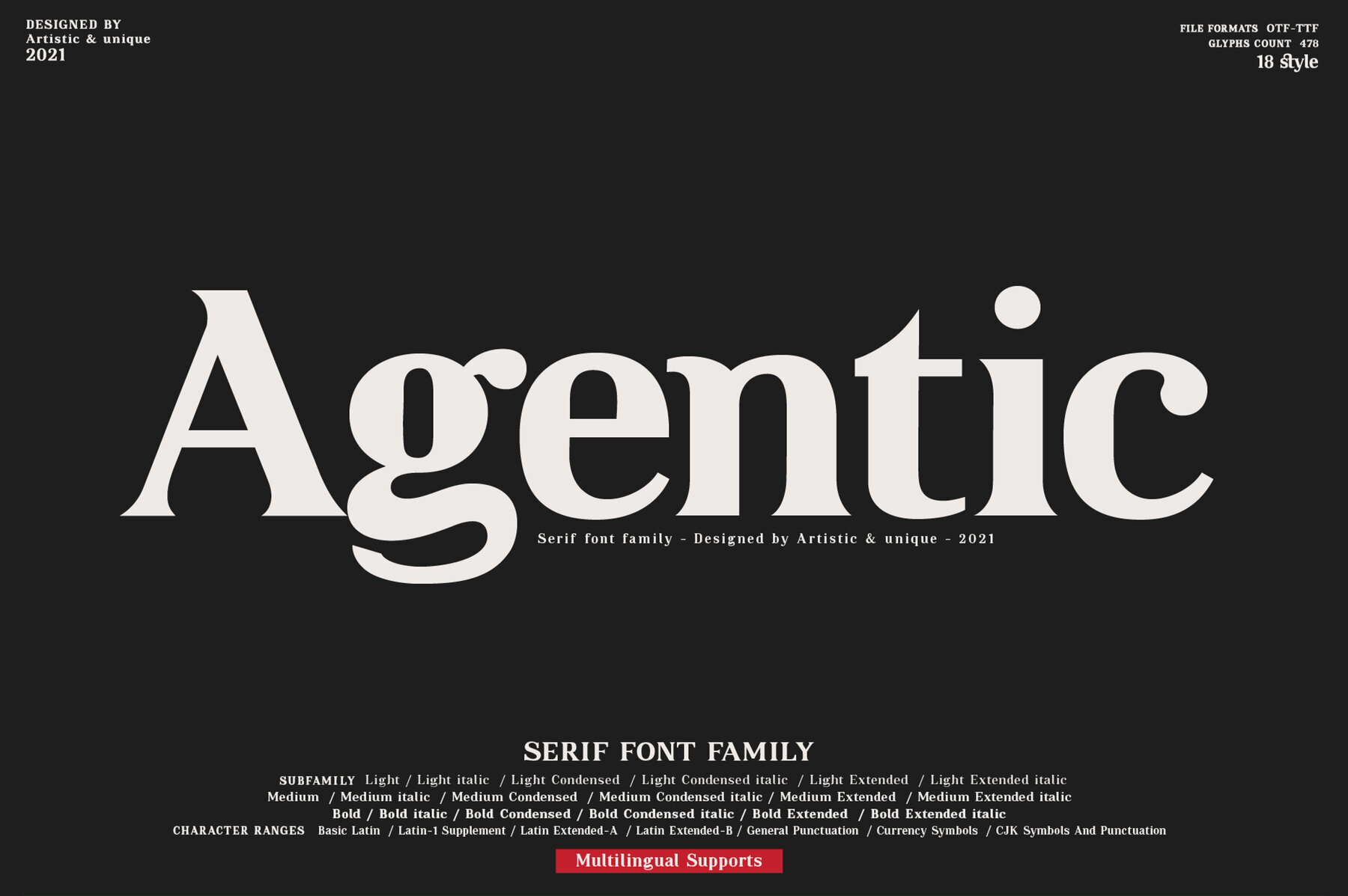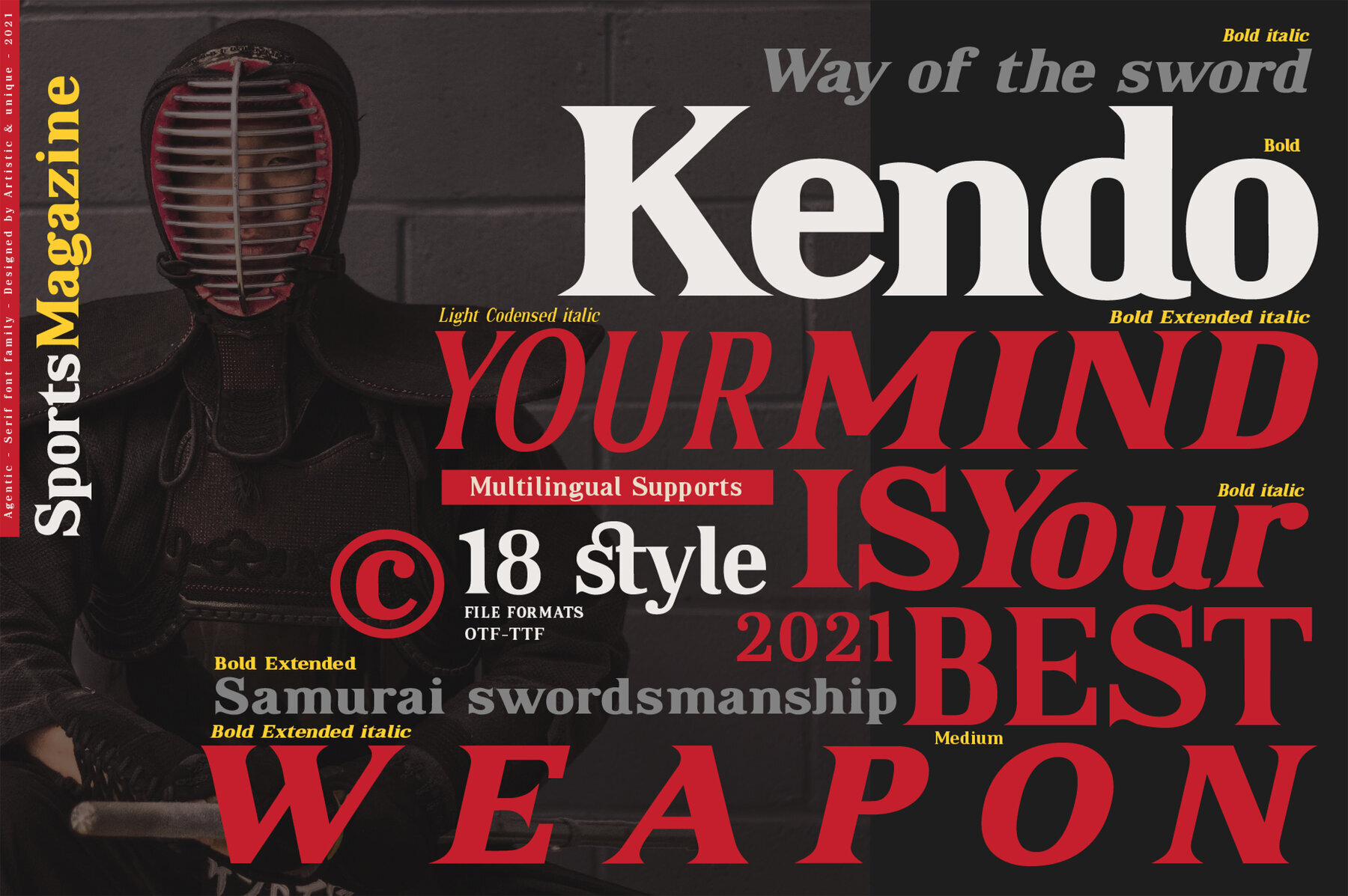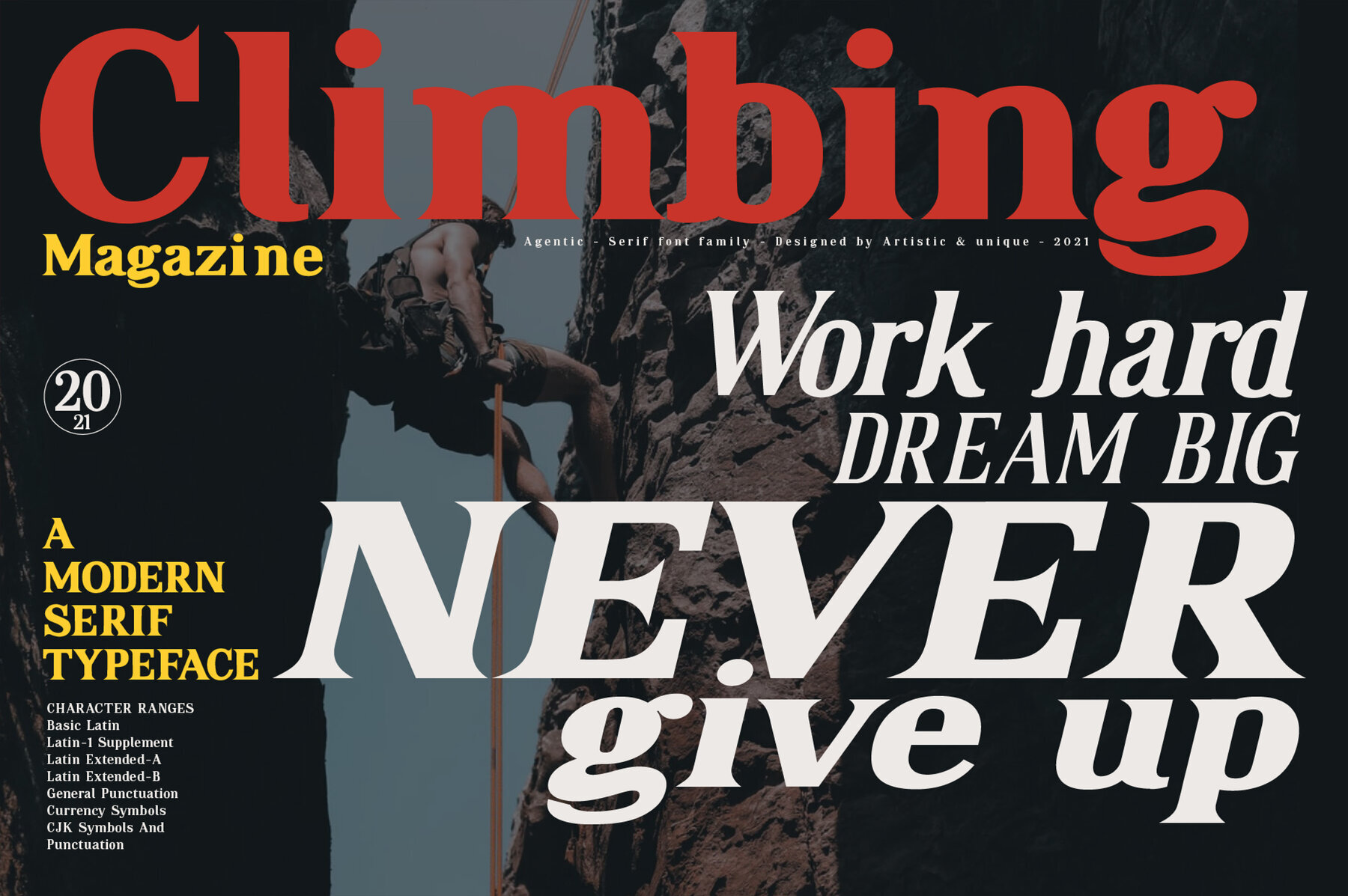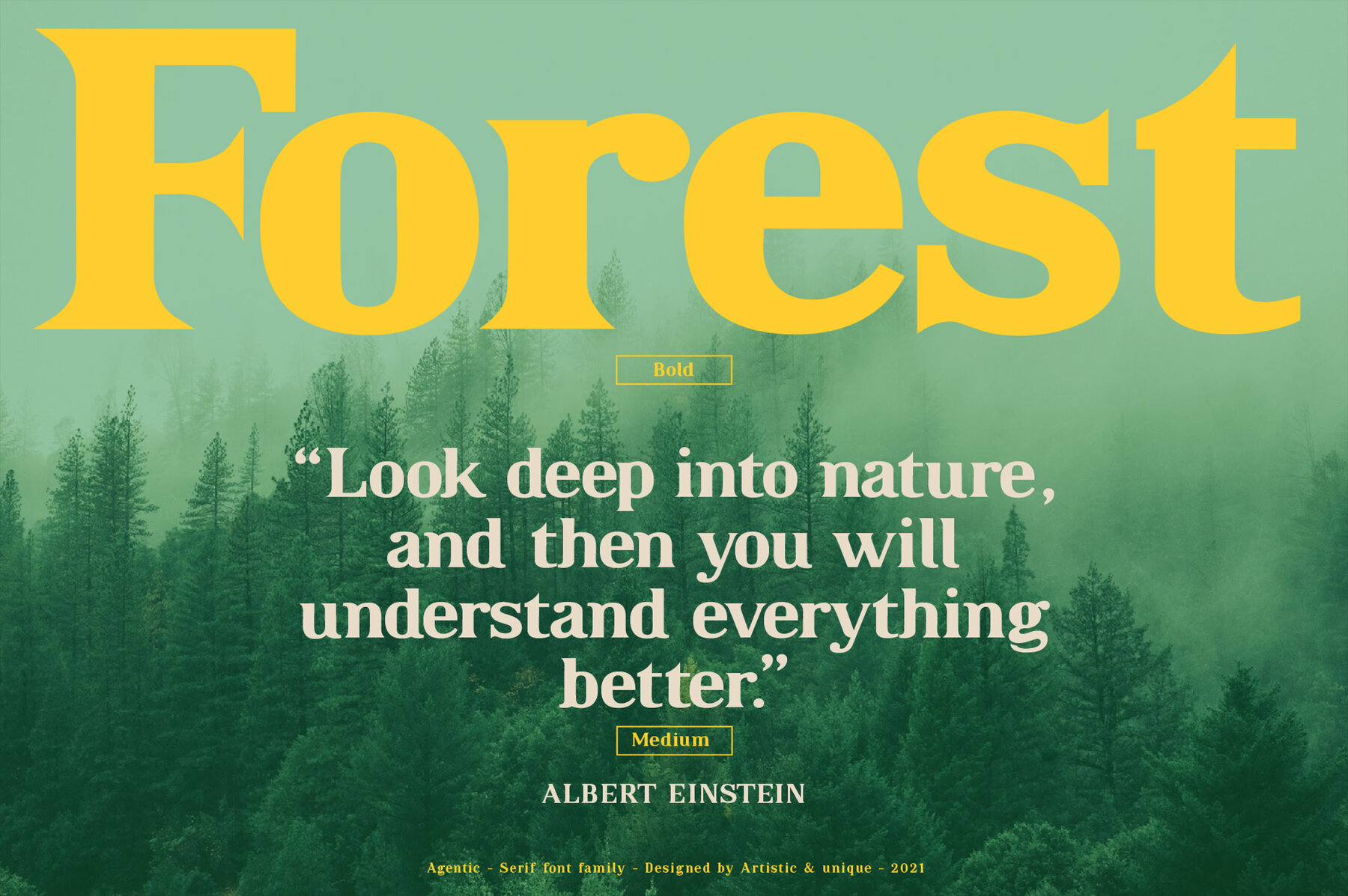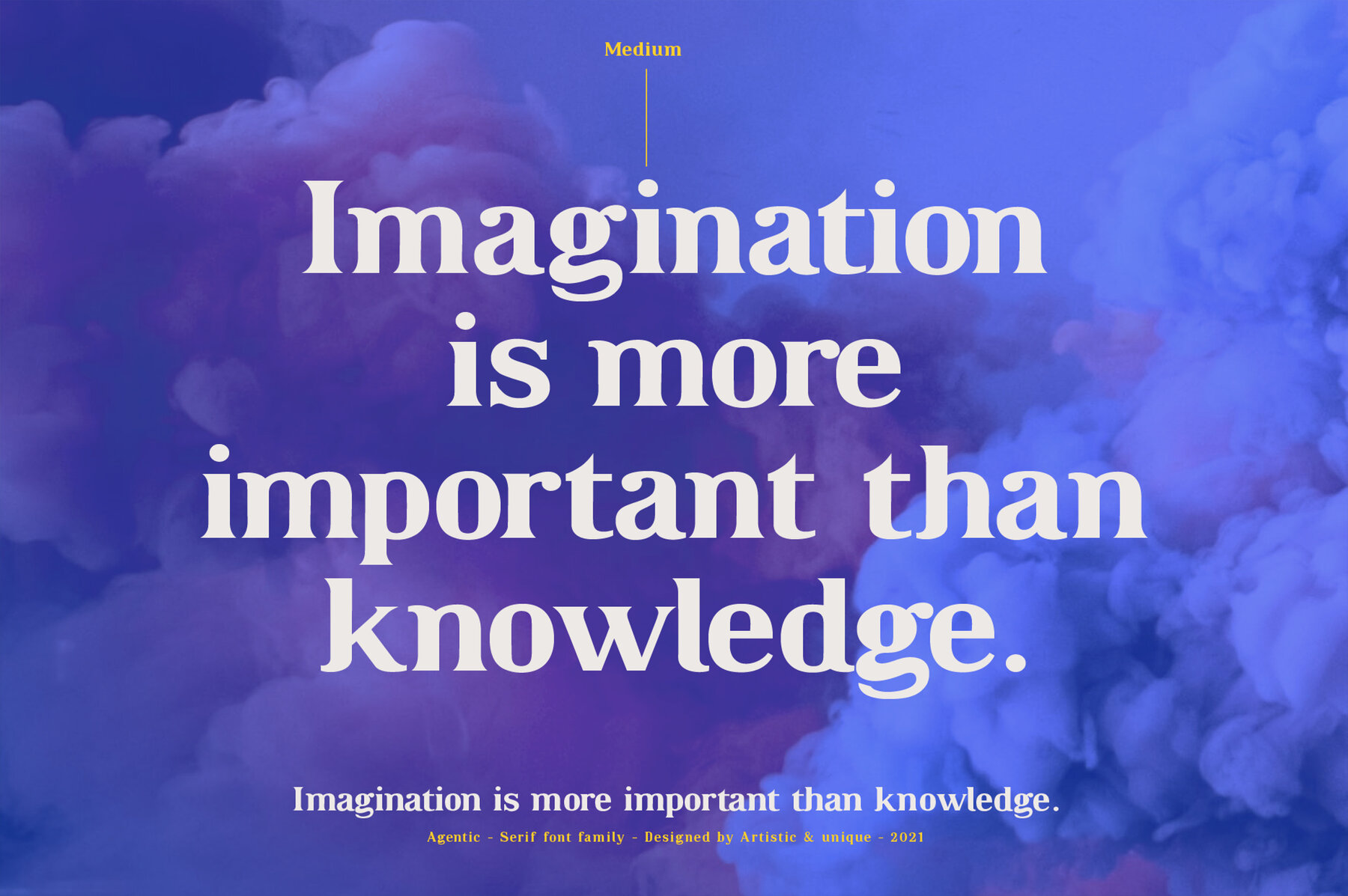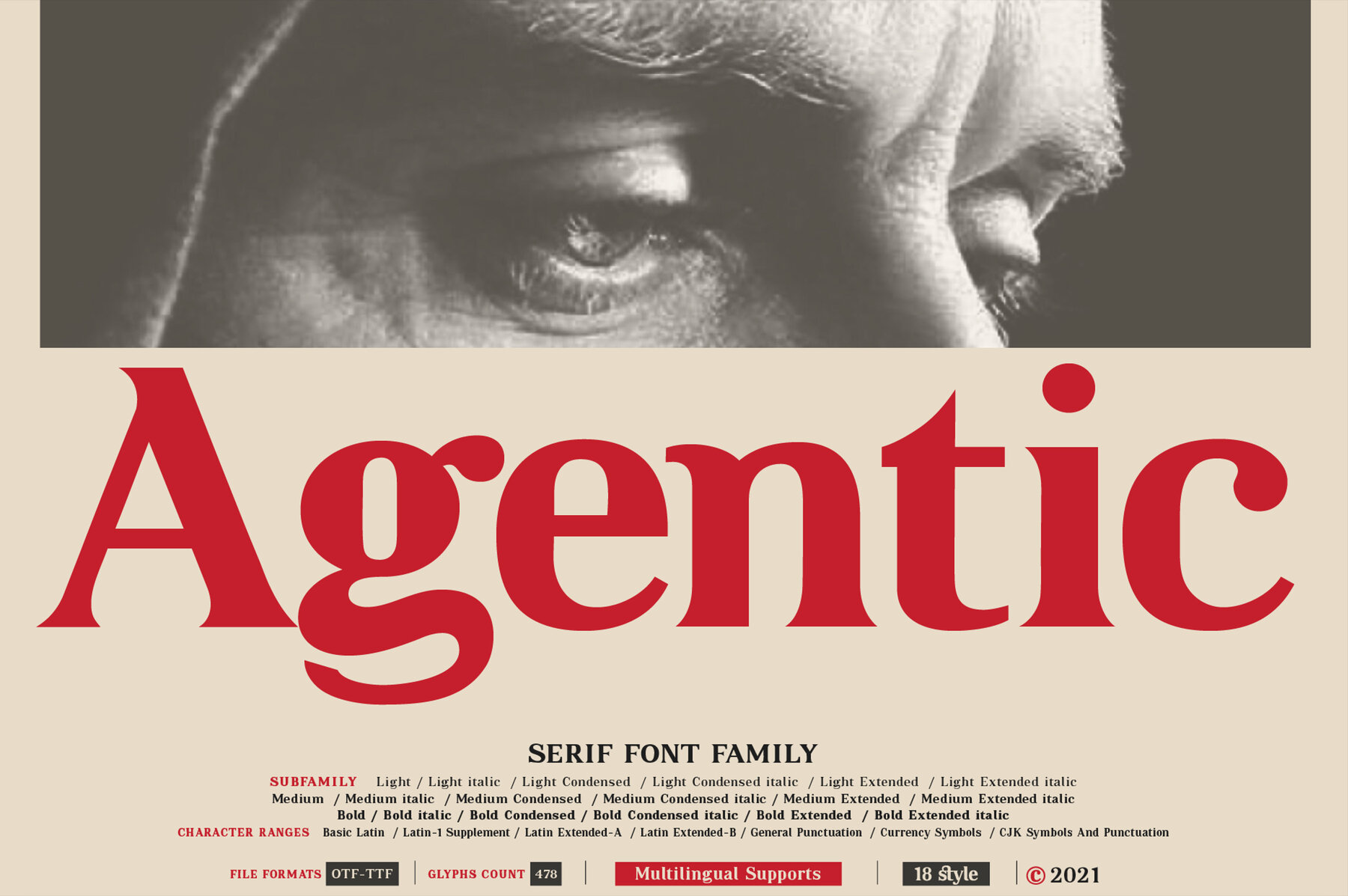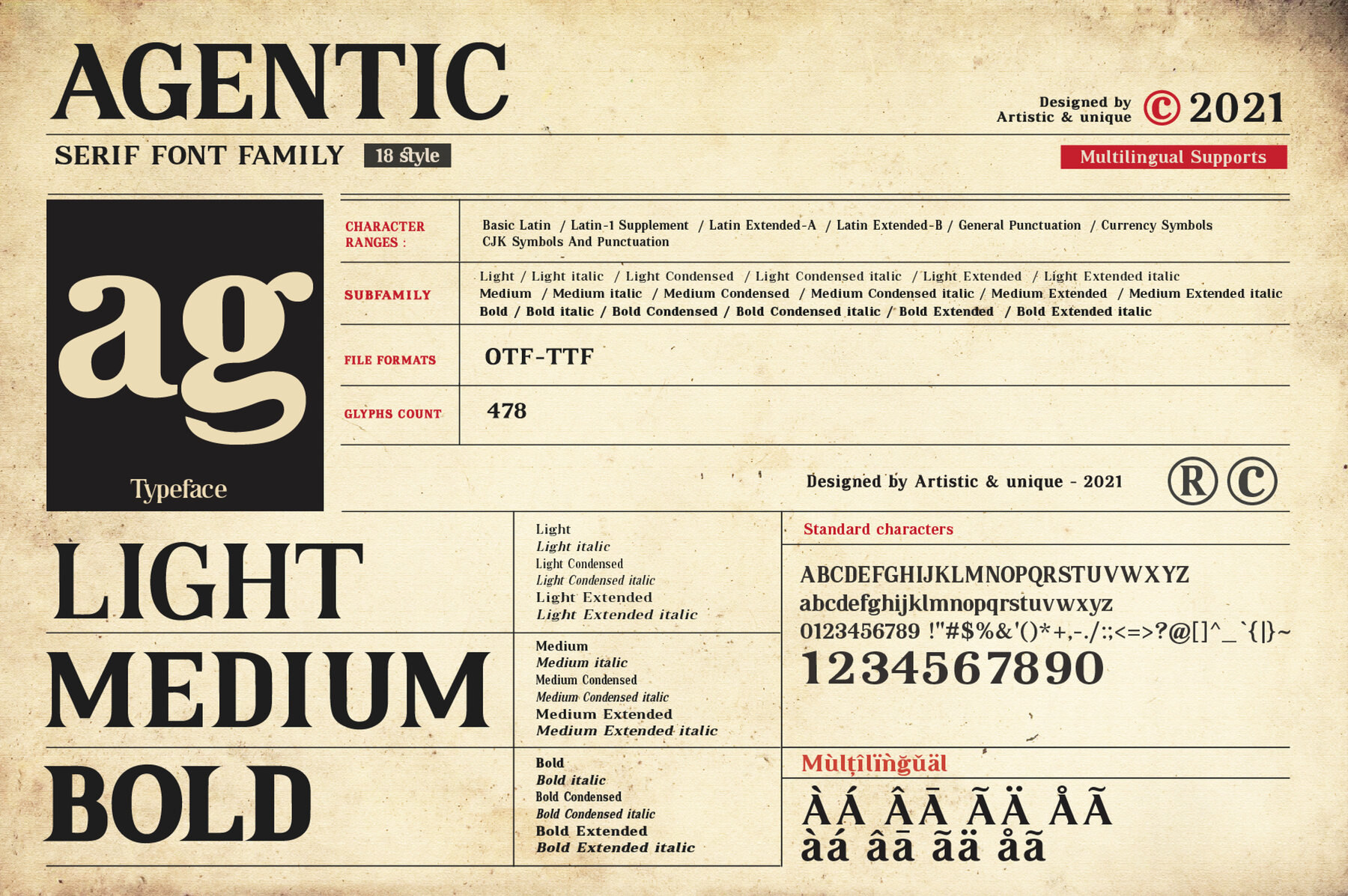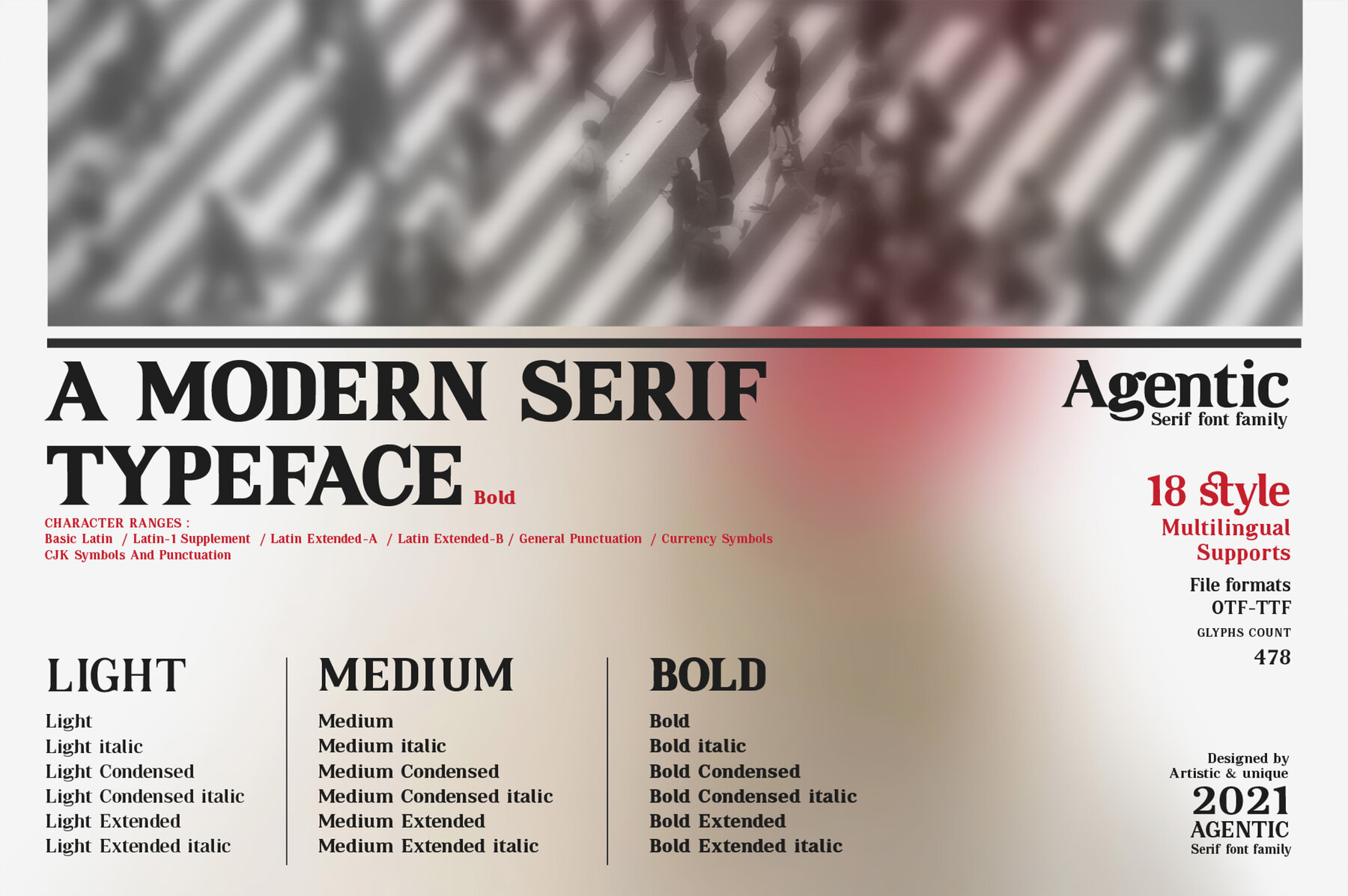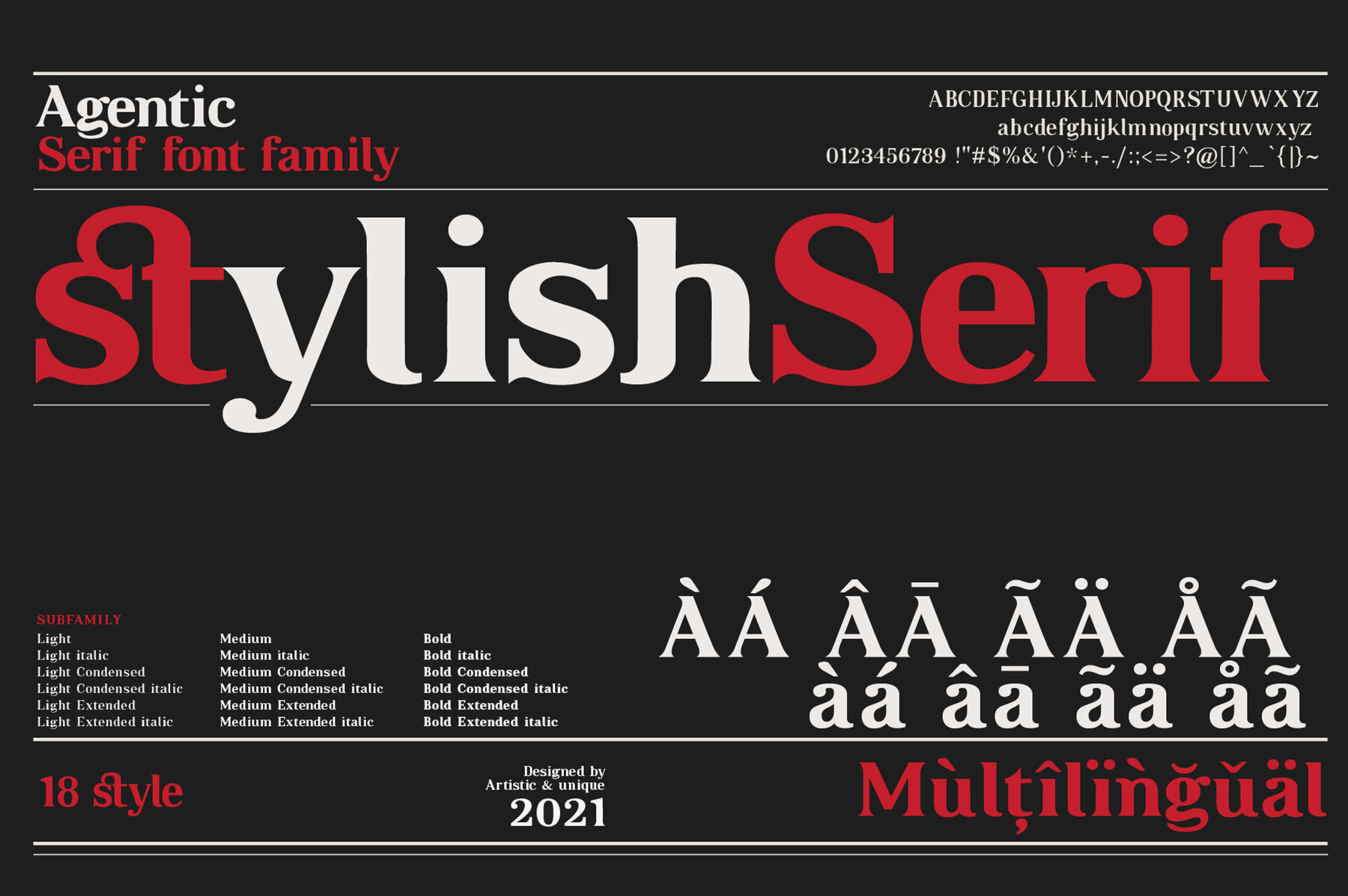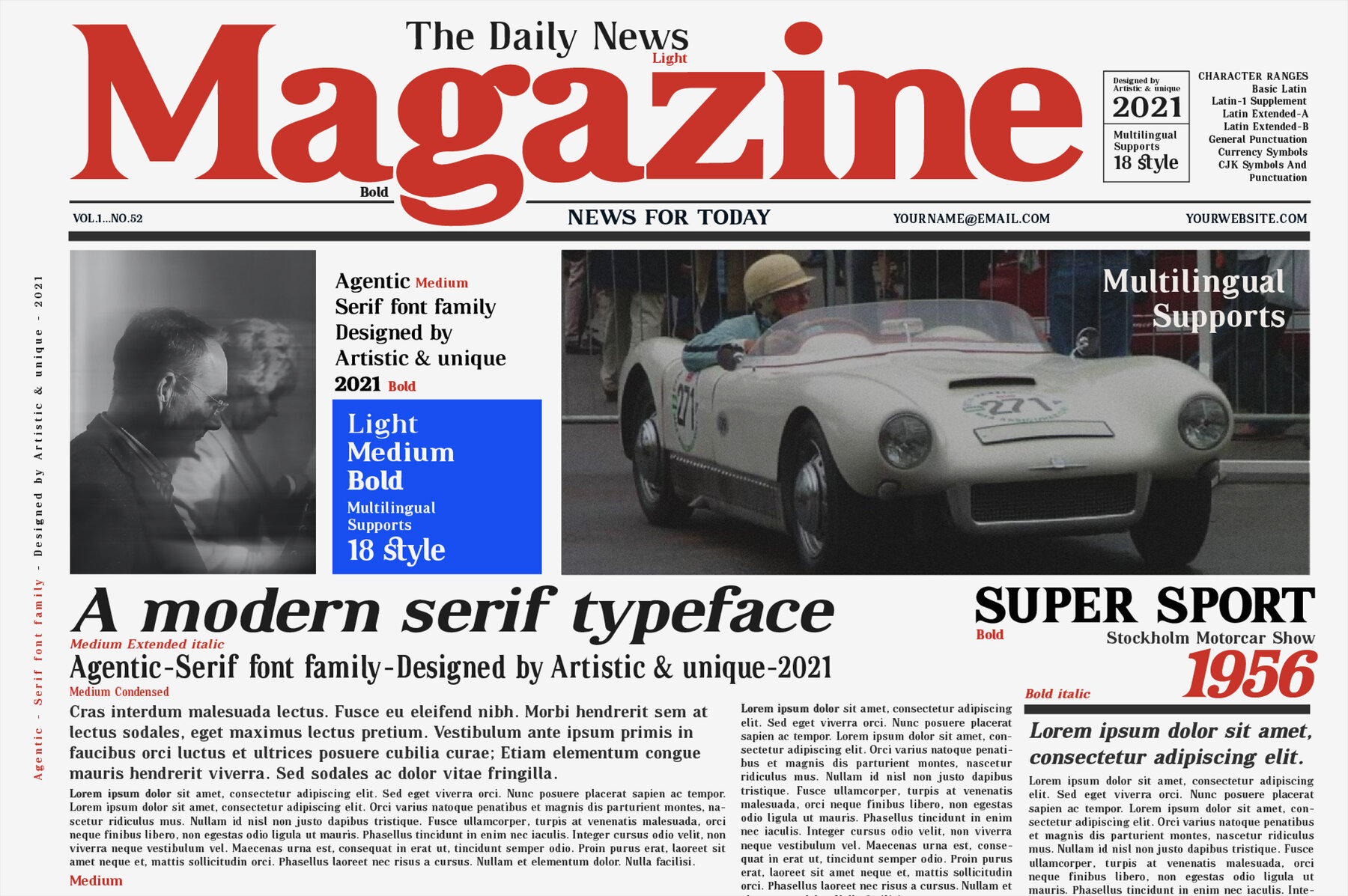
Agentic Font
Agentic Serif, a versatile font family, offers 18 unique styles along with robust multilingual support. Designed for clarity and readability, it is perfect for enhancing your articles with easy-to-read text. The distinctive blend of sharp and smooth character details provides dynamic options to set different tones in your projects. Let your creativity shine with Agentic by mixing upper and lowercase letters to craft both classic and contemporary designs.Discover Agentic Serif Font Family
Perfect For Diverse Applications